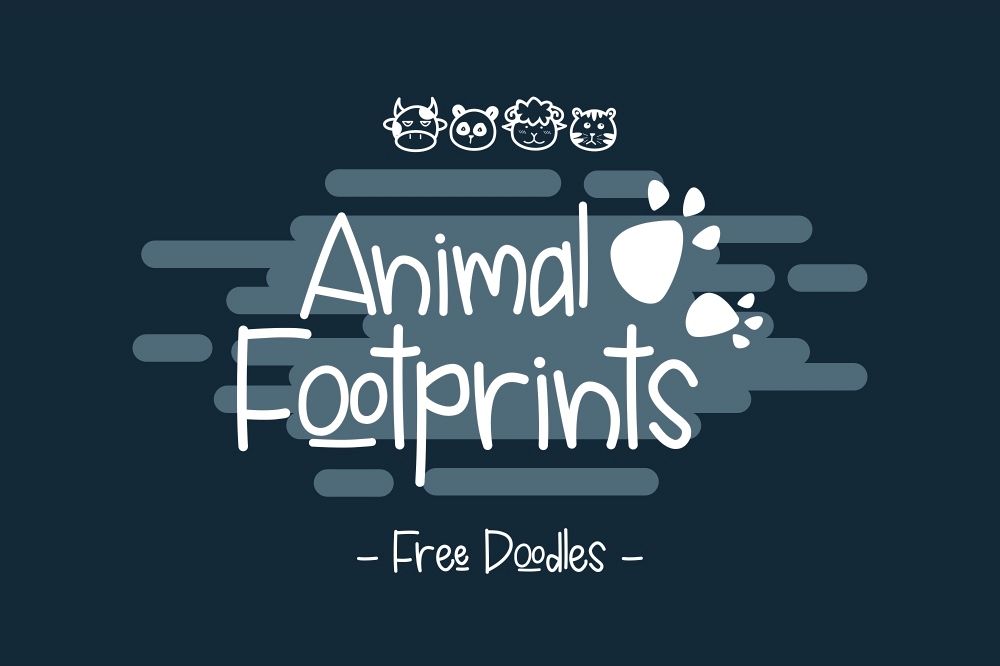
Animal Footprints
Animal
Footprints is a Basic Varios font that has unic and simply style it works
perfectly in all sort of photo, design projects like fashion,
wedding, branding, and more.
Animal
Footprints font Complete with :
- Uppercase
- Lowercase
- Numerals
- Punctuation
- Bonus vector
Also You can use Animal Footprints for logotype, headline, instagram post, greeting